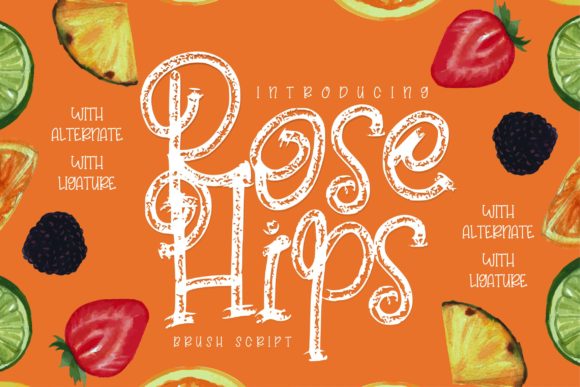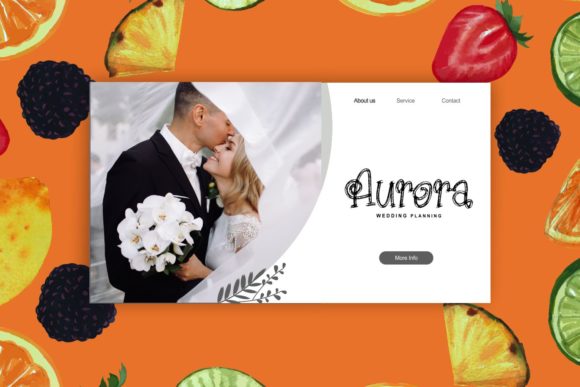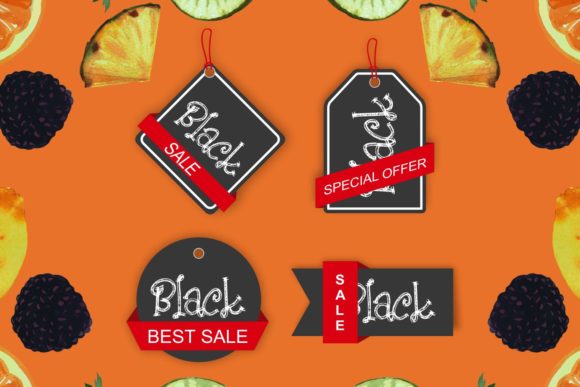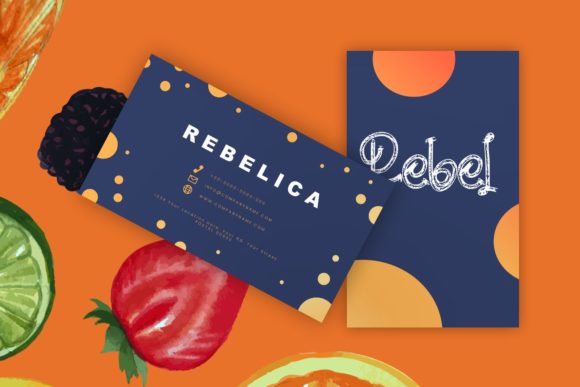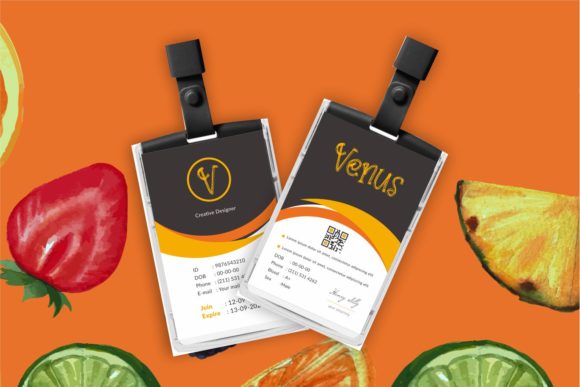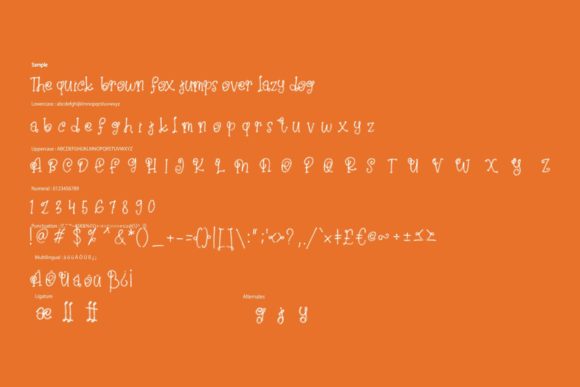
HomeScript FontsRose Hips Font Script Fonts Rose Hips Font FacebookXPinterestWhatsApp Rose Hips Font Poster 2 Rose Hips Font Poster 3 Rose Hips Font Poster 4 Rose Hips Font Poster 5 Rose Hips Font Poster 6 About Rose Hips Font Rose Hips is an exciting typeface that was handwritten with a brush. Get inspired by its one-of-a-kind coolness! DOWNLOAD ON CREATIVE FABRICAThis font is sold and delivered by Creative Fabrica. Font Canyon may earn a commission if you buy through this link. People also explored Angram Font Happy Wedding Font Magically Unforgettable Font Just Another Hand Pro Easter Handmade Font Saturday Wishes Font Wide Boy Font Shaker Arrow Ornament Font 280 0 TagsRose Hips Font Previous articlePuresity Burbon FontNext articleHello Day Font LEAVE A REPLY Cancel reply Comment: Please enter your comment! Name:* Please enter your name here Email:* You have entered an incorrect email address! Please enter your email address here Website: Save my name, email, and website in this browser for the next time I comment. Personal Use Free Droid Personal Use Free Read more about this font Dimensional Look71 Personal Use Free Read more about this font Equestrain Personal Use Free Read more about this font Bosk Personal Use Free Read more about this font BLOG Free Fonts Risk: Why Free Fonts Can Be Dangerous for Designers Free Fonts Risk: Why Free Fonts Can Be Dangerous for Designers Using free fonts is a common practice in web and graphic design. However, the... Exploring Font Trends Top 7 Google Fonts Alternatives for Faster and Privacy-Friendly Web Design (2025) Where to Buy American Fonts Online in 2024